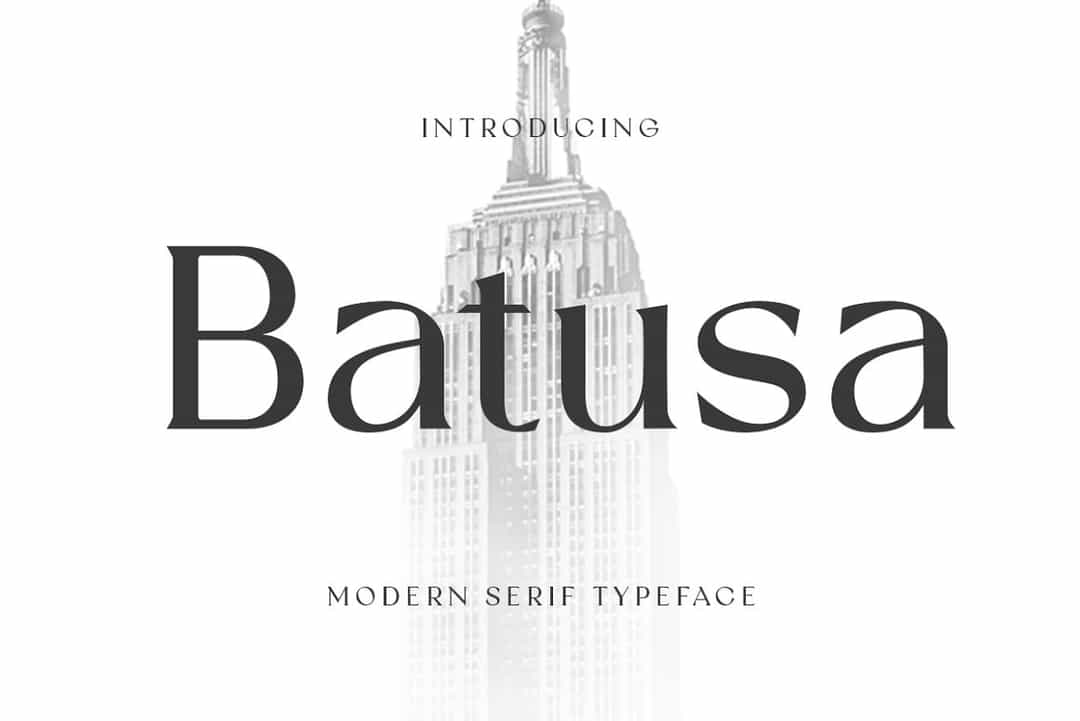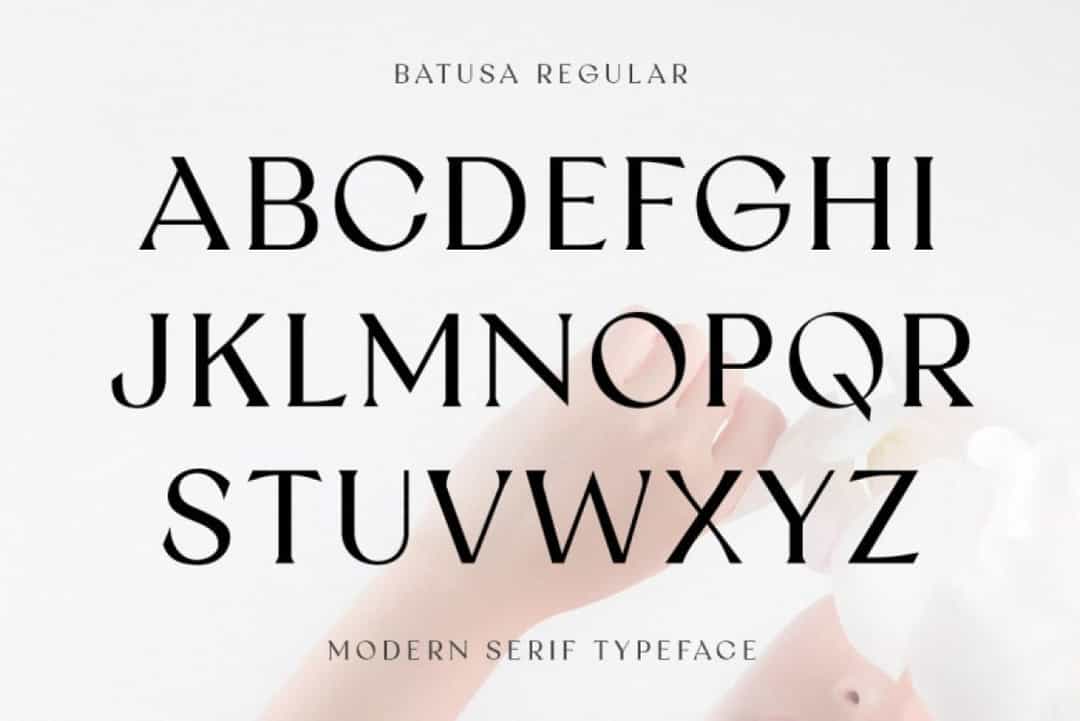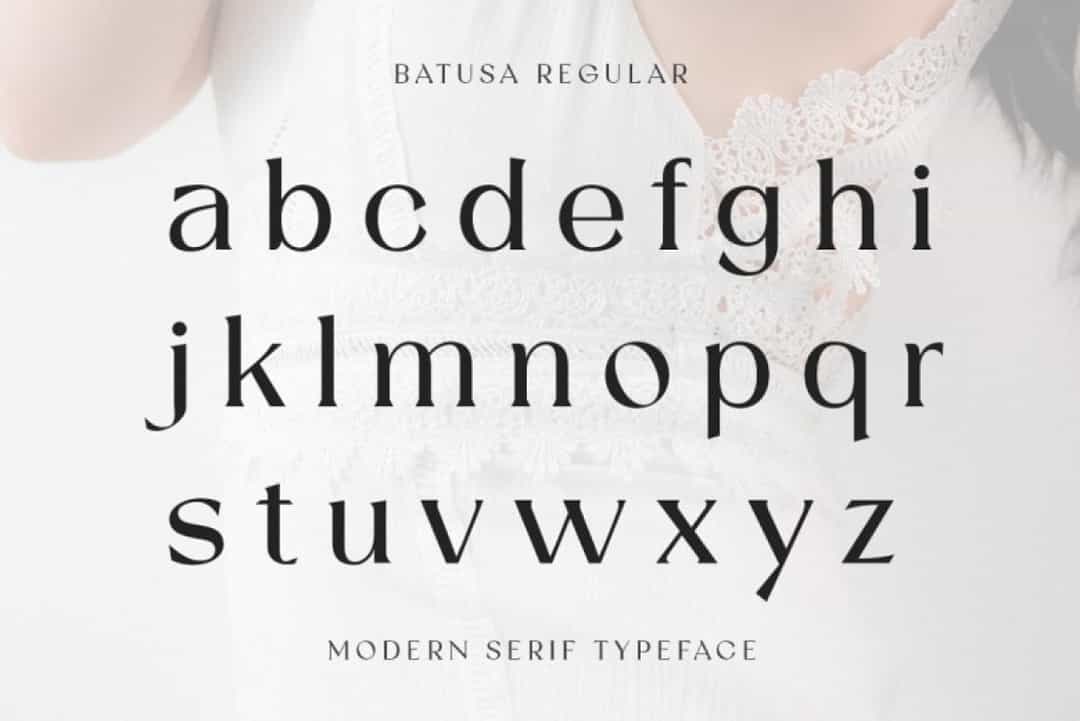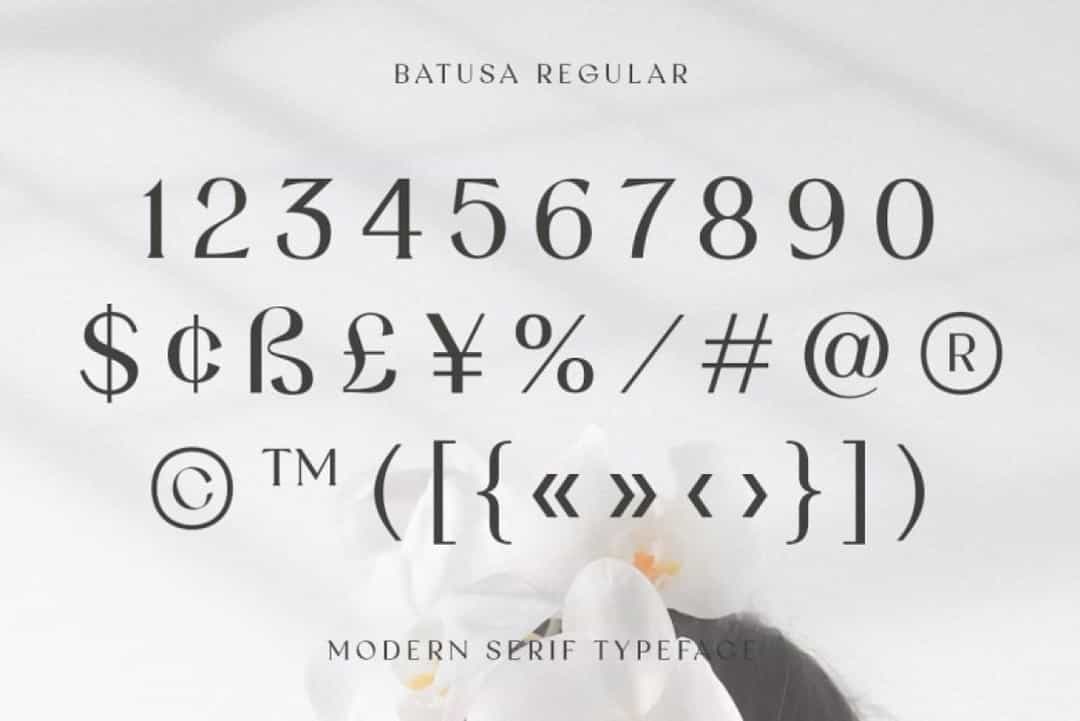
Batusa can be described as a modern serif typeface designed for high-resolution displays as well as printed media. Boasting elegant proportions and perfectly balanced curves, Batusa makes an excellent choice for headline text, corporate branding and any design applications requiring some flair.